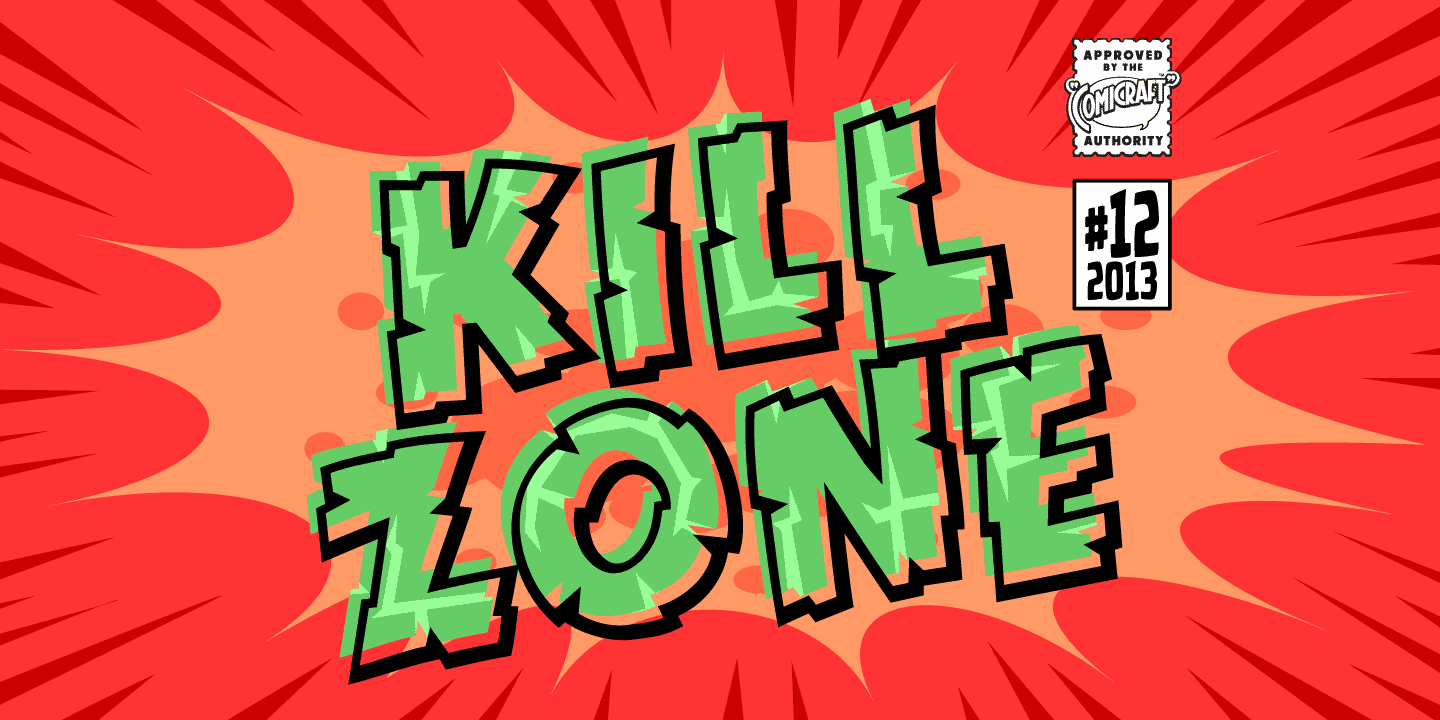
KillZone Font is perfect for intense action gaming logos, military-themed video game interfaces, tactical shooter game graphics, combat simulation training materials, strategic warfare game titles, competitive esports tournament branding, aggressive gaming merchandise design, hardcore gaming community identities, battle royale game promotions, and tactical gaming equipment advertising. Its commanding combat character makes it ideal for projects requiring military intensity and tactical gaming authenticity.
What makes KillZone Font exciting is its powerful embodiment of tactical warfare and combat intensity with aggressive letterforms and military-inspired characteristics that capture the essence of strategic gaming and battlefield excellence. The font features sharp angular cuts, tactical stroke patterns, and combat-ready character construction that create authentic military atmosphere and gaming appeal. Its commanding personality brings intensity and authority to contemporary designs while maintaining the clarity essential for gaming communications and tactical presentations. The carefully crafted combat elements ensure visual impact while preserving the distinctive character that embodies the essence of tactical gaming and military excellence.
KillZone Font comes in multiple tactical variations including Regular, Bold, Heavy, Combat, and Strike styles. Each family member amplifies the distinctive military character while offering different levels of tactical intensity and combat appeal. The complete font family includes alternate characters, military symbols, and tactical decorative elements that provide comprehensive tools for creating immersive combat design experiences and authentic tactical gaming brand storytelling.
Whether you're developing gaming brands, military simulation projects, or tactical entertainment ventures, KillZone Font Free Download provides the combat intensity needed to communicate with hardcore gamers and tactical enthusiasts who appreciate military precision and competitive gaming excellence. The font's aggressive appeal resonates with tactical gamers, esports professionals, and military gaming communities seeking authentic combat credibility and tactical sophistication. Its comprehensive character set includes military symbols and tactical marks, making it perfect for creating complete combat brand systems and memorable tactical storytelling across diverse gaming applications and intensity-focused design projects that celebrate tactical gaming and military excellence.